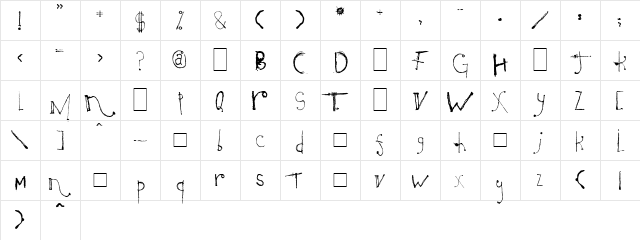
Caterpillar Demo Regular Font Preview
Caterpillar Demo Regular
Design Context for Caterpillar Demo Typeface
Caterpillar Demo is a composed and adaptable typeface that performs quietly and consistently across a wide range of design contexts.
Pro Tip: Use Caterpillar Demo in both headline and body roles to test its range before committing to a single application.